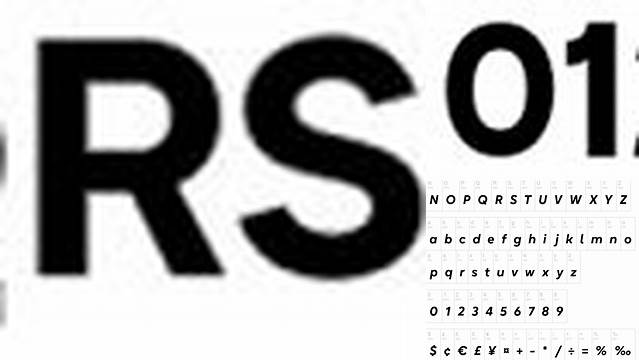
Okta Bold Free Font: The Ultimate Design Guide
Hey guys! Ever wondered about that perfect font that just screams professionalism and boldness? Well, look no further! We're diving deep into the world of Okta Bold Free Font, a typeface that’s making waves in the design community. In this article, we’ll explore everything you need to know, from its origins and characteristics to how you can use it to elevate your projects. So, buckle up and let’s get started!
Okta Bold Font: An Overview
Okta Bold Font is a typeface designed with clarity and impact in mind. Its strong, clean lines and bold weight make it an excellent choice for headlines, logos, and branding materials. But what exactly makes this font so special? Let’s break it down. When discussing Okta Bold Free Font, we're essentially talking about a typeface that balances modern aesthetics with readability. This balance is crucial, especially when you're aiming to capture attention without sacrificing clarity. The design elements incorporate a certain geometric precision, which gives it a contemporary edge. The strokes are consistent, the curves are smooth, and the overall structure is robust. This makes it highly versatile, fitting seamlessly into various design contexts. Whether you’re designing a website, crafting a presentation, or creating marketing collateral, Okta Bold Font offers a reliable solution for conveying your message with confidence and style. Think about the last time you encountered a font that immediately grabbed your attention. It likely had a certain boldness and clarity, right? That’s what Okta Bold Font brings to the table. It stands out without being overwhelming, making it an ideal choice for projects where you need to make a statement. For example, imagine using this font for the heading of a blog post or the title of a presentation slide. It instantly commands attention, drawing the viewer in and setting a tone of authority and confidence. Furthermore, the readability of Okta Bold Free Font is a significant advantage. In the digital age, where attention spans are shorter than ever, you need a font that can communicate quickly and effectively. Okta Bold Font excels in this regard, ensuring that your message is not only seen but also easily understood. This is particularly important for website design, where clear typography can significantly enhance user experience.
History and Origins of Okta Bold
To truly appreciate Okta Bold Font, it’s worth delving into its history and origins. Understanding the designer’s inspiration and the journey behind the typeface can give you a deeper connection to the font and its potential uses. So, who created this bold masterpiece, and what influenced their design choices? Let’s find out. The story of Okta Bold Free Font typically begins with a vision – a designer’s aspiration to create a typeface that embodies strength, clarity, and modernity. The font's creator often draws inspiration from various sources, including architectural designs, historical typography, and contemporary art movements. This eclectic mix of influences helps shape the unique character of Okta Bold. The design process itself is a meticulous undertaking. It involves countless hours of sketching, refining, and testing. Each letterform is carefully crafted to ensure consistency and harmony across the entire font family. The weight, spacing, and overall balance of the font are fine-tuned to achieve optimal readability and visual appeal. The history of a font like Okta Bold is also intertwined with the technological advancements in typography. In the early days of printing, font design was constrained by the physical limitations of metal type. However, with the advent of digital typography, designers gained unprecedented freedom to experiment and innovate. Okta Bold often leverages these digital tools to create a typeface that pushes the boundaries of traditional design. Furthermore, understanding the historical context of Okta Bold Free Font can inform how you use it in your projects. For instance, if the font was inspired by mid-century modern design, it might be particularly well-suited for projects that evoke a retro aesthetic. Conversely, if the font has a more contemporary origin, it might be a better fit for cutting-edge designs. Consider the evolution of typography itself. From the elegant serifs of classical fonts to the clean lines of sans-serif typefaces, each era has its distinct typographic style. Okta Bold often represents a modern evolution, blending elements of both classic and contemporary design. This fusion makes it a versatile choice for a wide range of applications. In essence, knowing the history and origins of Okta Bold provides a richer understanding of its design philosophy and potential uses. It’s not just a font; it’s a product of creative vision, technical expertise, and historical context.
Key Characteristics of Okta Bold Free Font
What are the defining characteristics that make Okta Bold Font stand out? Is it the bold weight, the clean lines, or something else entirely? Let's break down the key features that make this font so distinctive and why designers love it. When we talk about Okta Bold Free Font, we often focus on its visual impact. The boldness is, of course, a primary characteristic. It commands attention and conveys a sense of strength and authority. But there's more to it than just the weight of the letters. The design of Okta Bold also incorporates clean, geometric lines. This gives it a modern, almost architectural feel. The shapes are precise, the curves are smooth, and the overall structure is highly balanced. This precision contributes to the font's readability, making it easy to scan and comprehend. Another key characteristic is the spacing between letters and words. In Okta Bold, the spacing is carefully calibrated to ensure legibility without feeling cramped. This is particularly important for longer blocks of text, where poor spacing can quickly fatigue the reader. The letterforms themselves are designed with a keen eye for detail. The ascenders and descenders – the parts of letters that extend above and below the main body – are often slightly elongated, adding a touch of elegance and sophistication. The bowls (the enclosed rounded parts of letters like